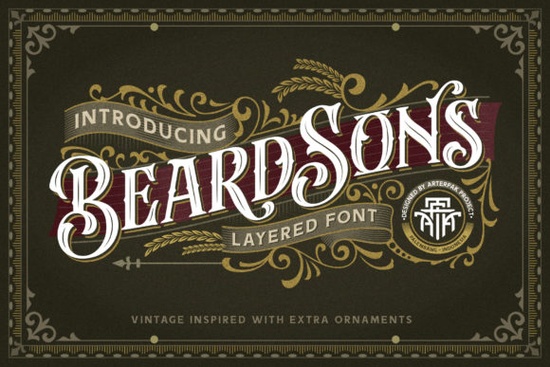
If you're working on a design that calls for dramatic flair, historical texture, or a bold gothic presence, Beardsons Font might be just what you need. This blackletter typeface blends old-world craftsmanship with modern usability ideal for logos, posters, apparel, and branding projects that want to stand out without feeling overly ornate.
Blackletter fonts like Beardsons trace their roots back to medieval manuscripts and early printing presses. Today, they’re often used in tattoo designs, metal band merch, craft beer labels, and even wedding invitations that lean into vintage or rustic themes. What makes Beardsons special is its balance: it’s detailed enough to feel authentic but clean enough to remain legible at smaller sizes.
What kinds of projects work best with Beardsons?
Because of its strong vertical strokes and sharp serifs, Beardsons shines when used as a display font that is, for headlines, titles, or short phrases rather than body text. Here are a few real-world uses where it really fits:
- Print-on-demand products: Think T-shirts, mugs, or tote bags featuring quotes, band names, or edgy slogans.
- Event branding: Halloween parties, gothic weddings, or Renaissance fairs benefit from its historical vibe.
- Logo design: Small businesses in brewing, barbering, leather goods, or tattoo studios often use blackletter fonts to signal tradition and craftsmanship.
- Craft projects: Vinyl cutters and Cricut users love Beardsons for wood signs, etched glass, or embroidered patches.
If you’re exploring similar styles, you might also enjoy other blackletter options like Gothic Old English, which leans more traditional, or Crownspire, which adds a slightly more structured, architectural feel.
How does Beardsons compare to other blackletter fonts?
Not all blackletter fonts are created equal. Some are so dense they become hard to read; others feel too stiff or digitized. Beardsons strikes a middle ground it keeps the dramatic contrast and pointed arches typical of the style, but with open counters and consistent spacing that help it hold up across different mediums.
For example, while Beardsons works beautifully for a hand-stamped leather journal cover, a heavier alternative like Gothic Old English might overwhelm the same surface. On the flip side, if your project needs a bit more regal structure say, for a fantasy book cover Crownspire could offer a sharper silhouette.
Tips for using Beardsons effectively
Like any decorative font, Beardsons needs thoughtful pairing and placement:
- Avoid long paragraphs. Stick to short phrases, names, or single words. Blackletter fonts lose impact (and readability) in large blocks of text.
- Pair with simple sans-serifs. Combine Beardsons with clean fonts like Helvetica, Montserrat, or Lato for body copy or supporting text. This creates contrast and keeps your message clear.
- Watch your kerning. Some letter combinations (like “AV” or “To”) can feel tight in blackletter fonts. Most design software lets you adjust spacing manually take a moment to fine-tune.
- Test print or mockup first. Especially for physical products, check how the fine details render at actual size. Thin strokes may disappear on low-res printers or coarse fabrics.
And remember: while Beardsons has a vintage soul, it doesn’t have to feel dated. Used thoughtfully, it can add depth and character to contemporary designs especially when you want to hint at heritage, rebellion, or timeless quality.
Before you download Beardsons, ask yourself:
- Is this for a headline or short phrase? (If yes, great fit.)
- Have I tested it at the final output size? (Crucial for crafts and print.)
- Does it complement my brand or project mood not just look “cool”? (Authenticity matters.)
When used with intention, Beardsons adds gravitas without gimmicks. It’s not just a font it’s a storytelling tool for designers who value history, texture, and visual weight.